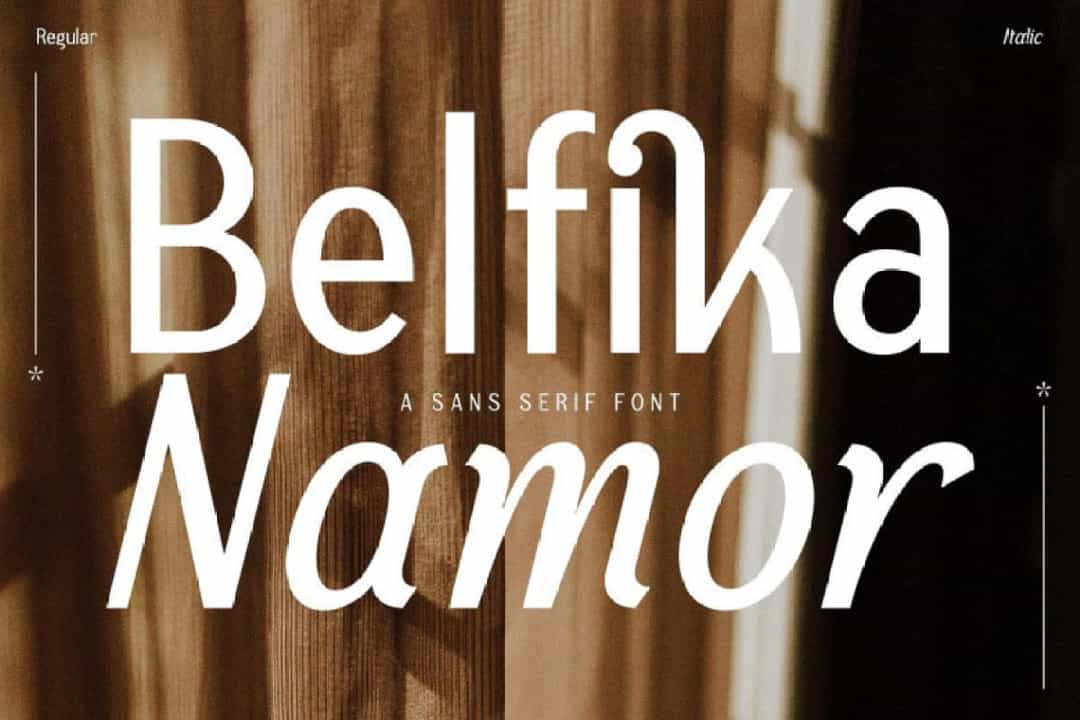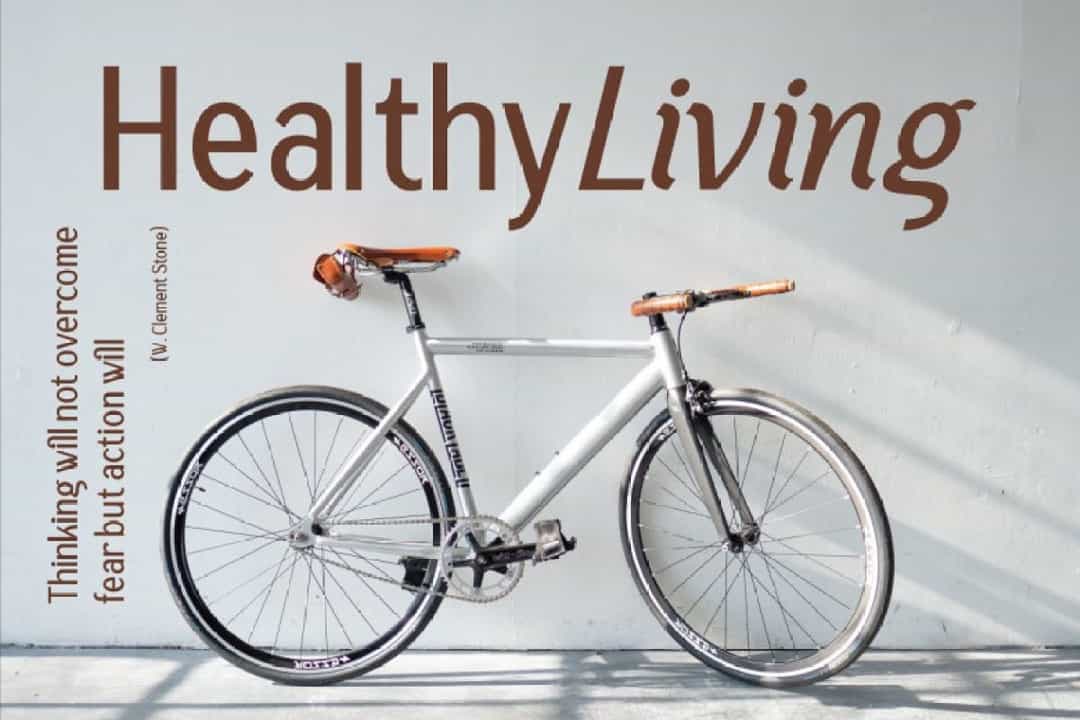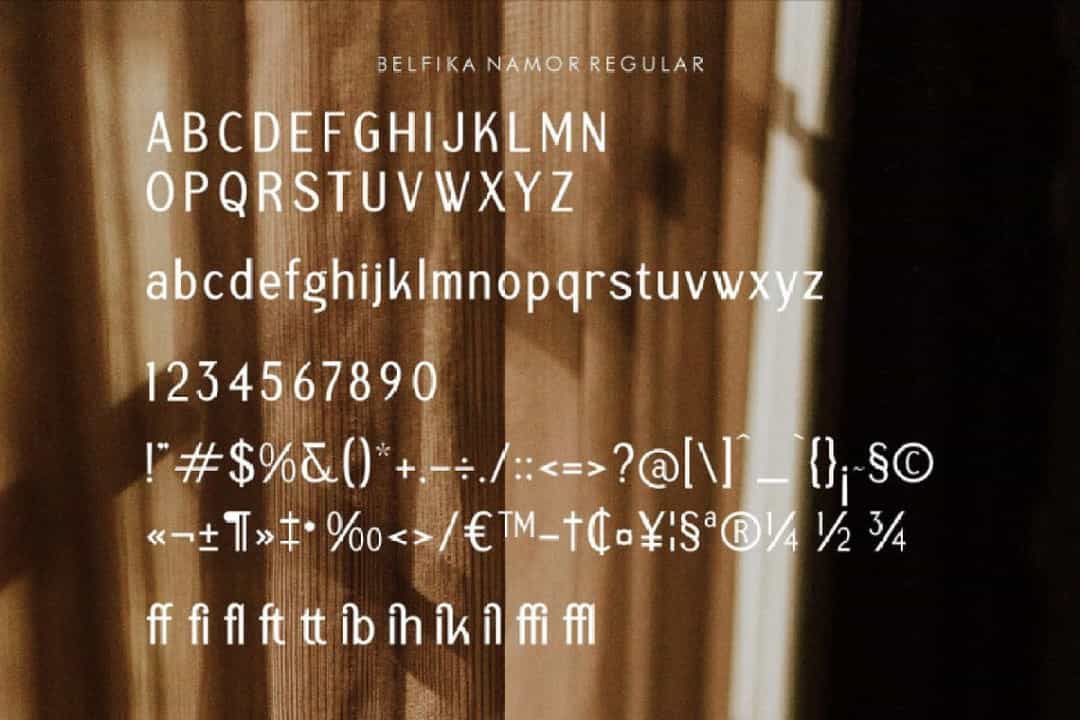
Belfika Namor Font by Storytype is a timeless yet modern sans serif font with its distinct style and modern appearance, perfect for creating elegant logos, movie or book styles, fashion labels magazine covers, clothing lettering or quotes among many other uses. This typeface makes for easy coding of movie or book pages in multiple languages!